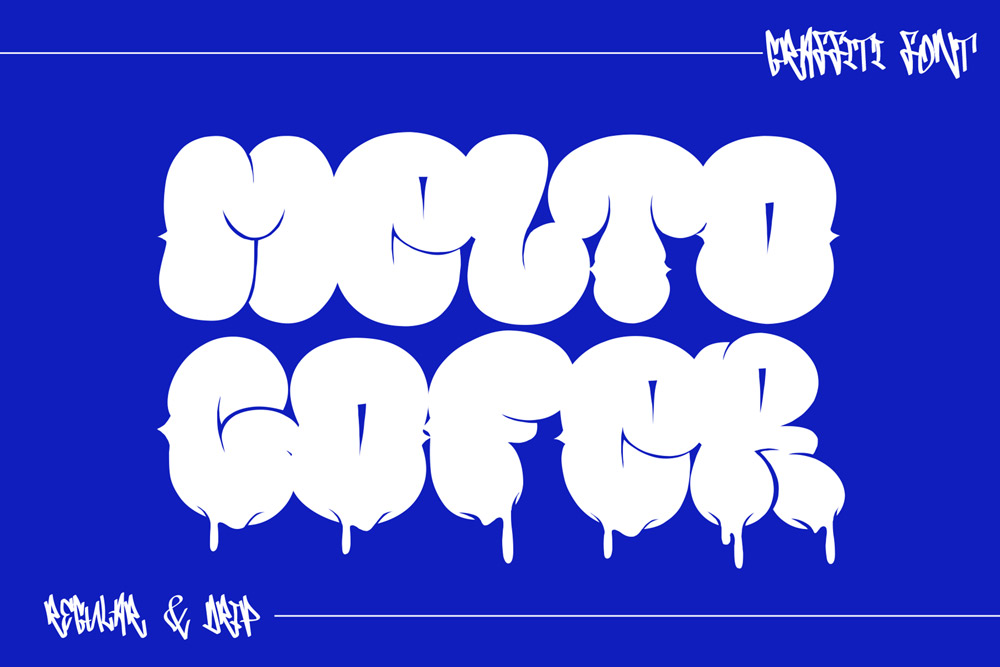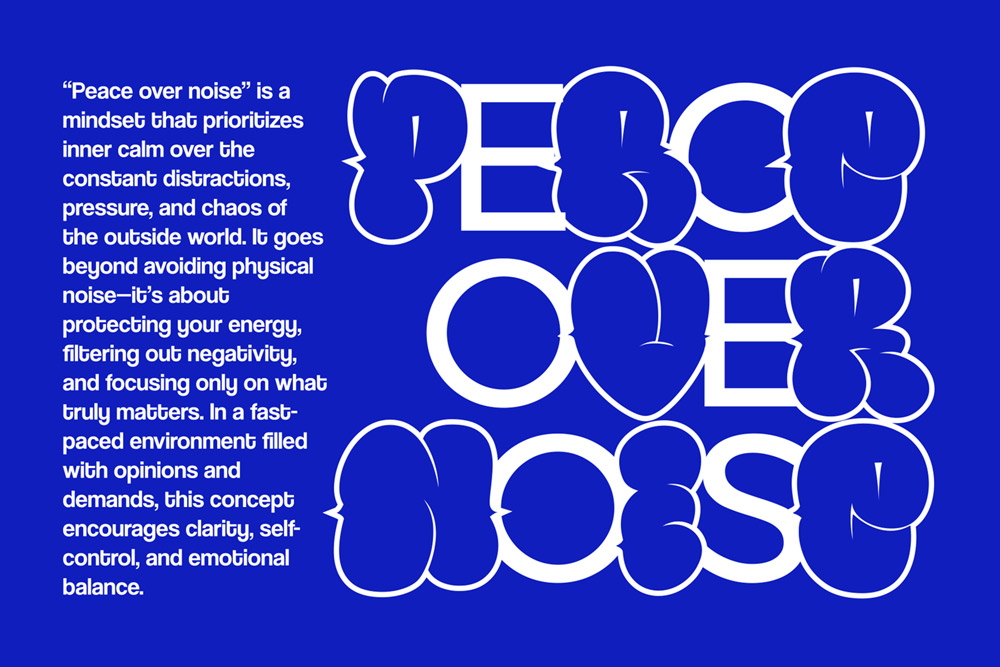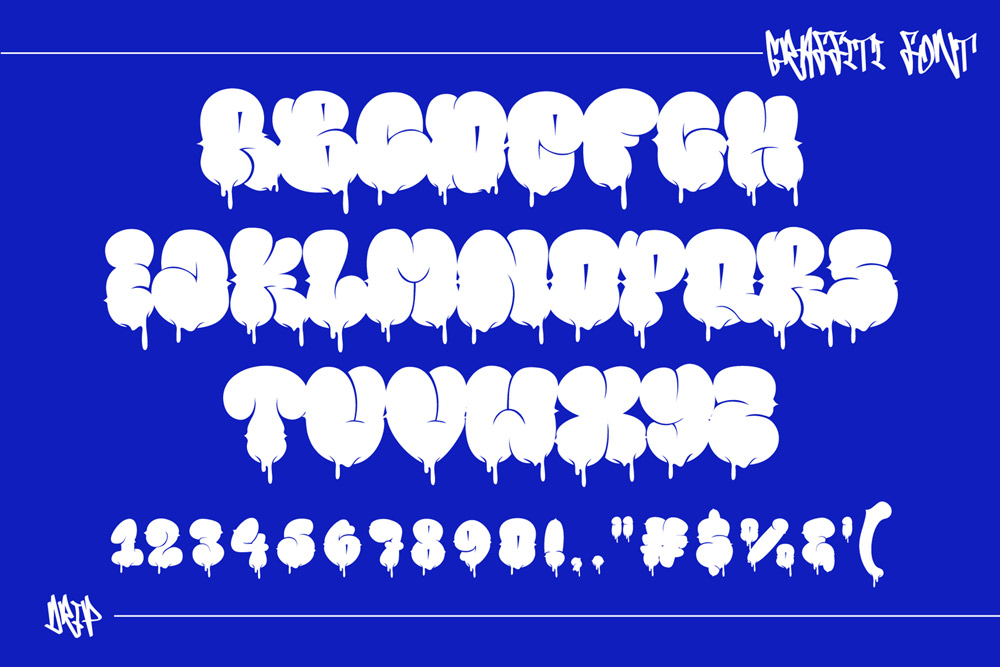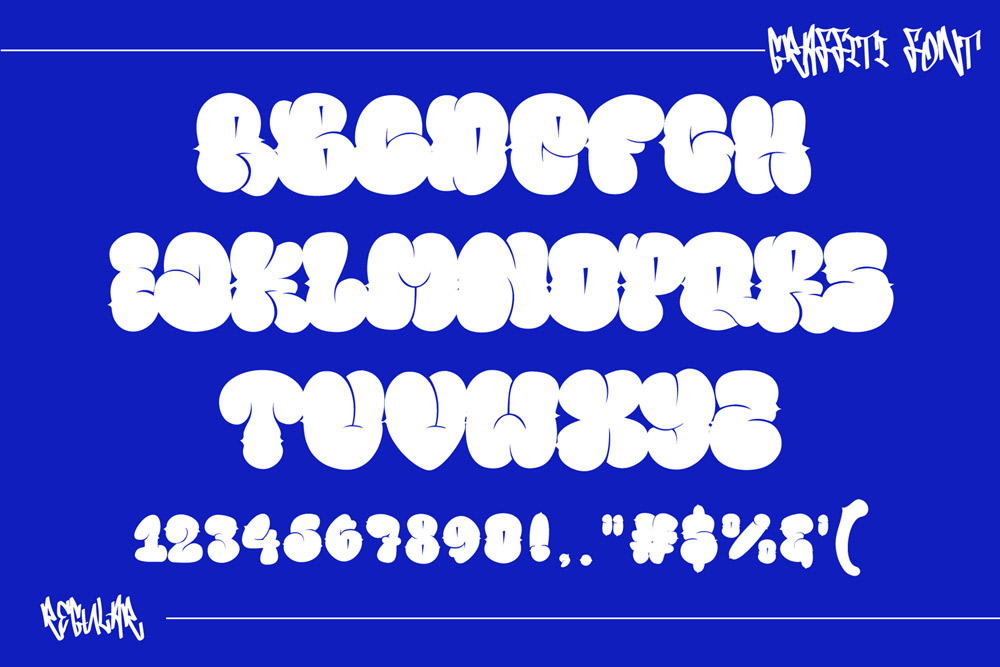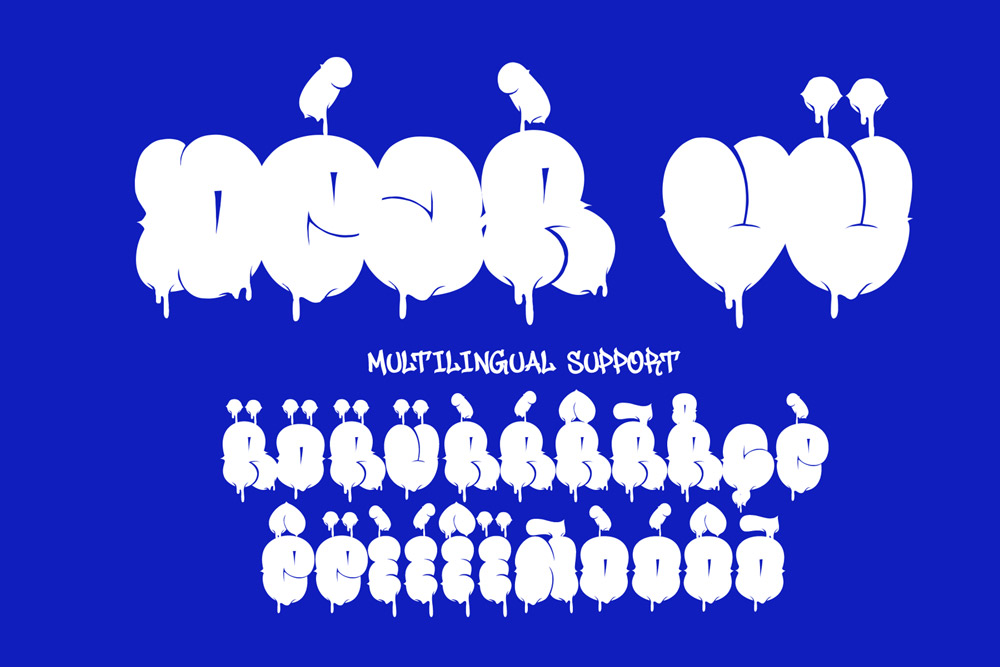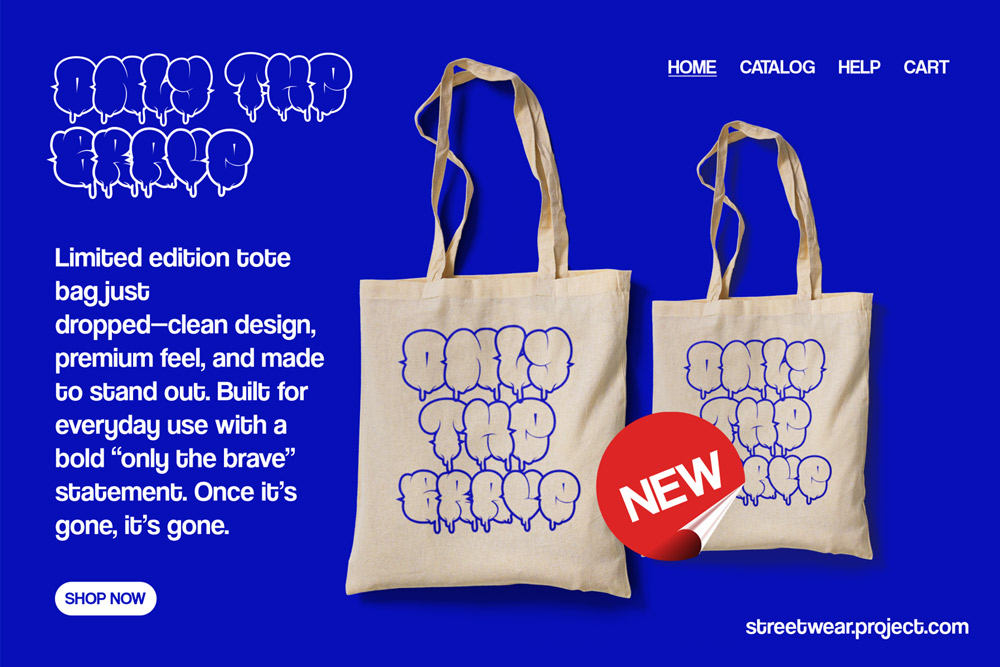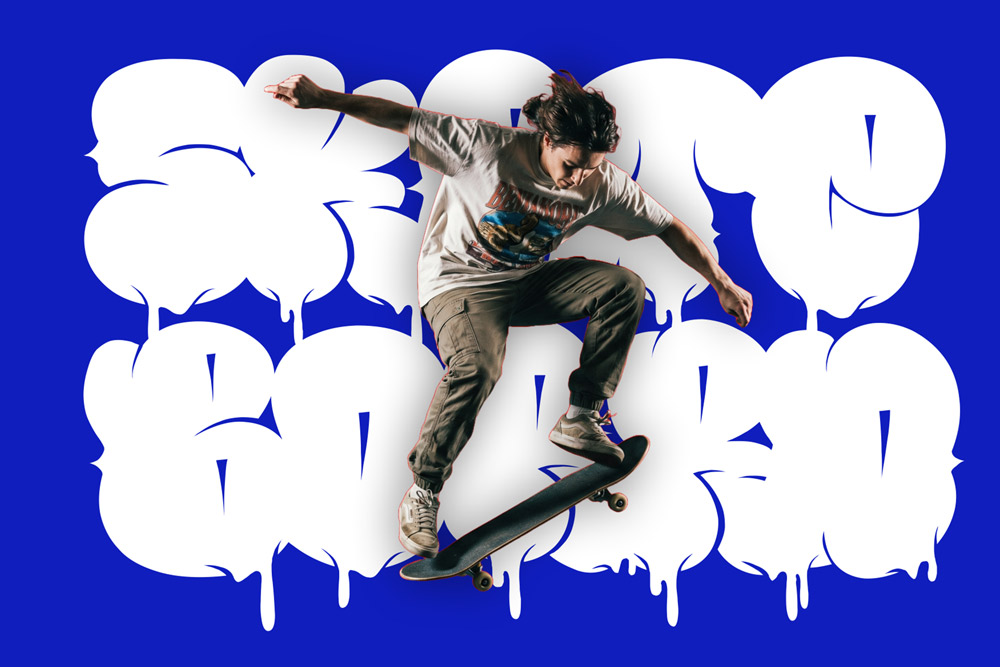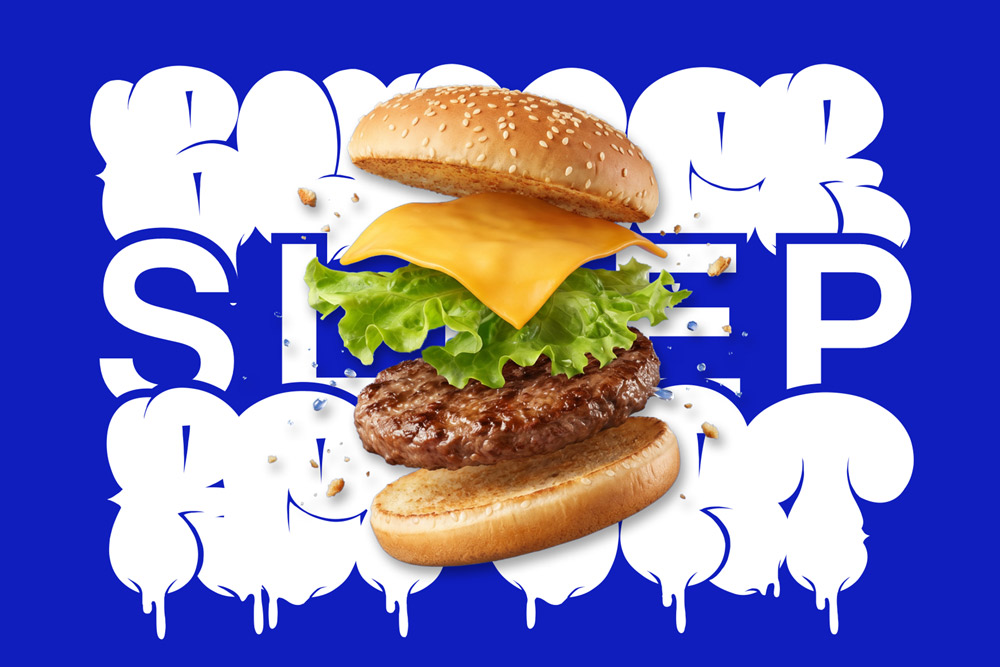
About Melto Gofer
Melto Gofer – Bubble Dripping Throw-Up Graffiti Font
Melto Gofer is a bold and playful graffiti font inspired by classic throw-up lettering and bubble-style street art. Designed to capture the fast, expressive energy of urban tagging, this bubble graffiti font blends rounded shapes with dripping effects to create a dynamic and eye-catching visual style. Whether you’re working on streetwear branding, posters, or music artwork, Melto Gofer graffiti font brings a fresh and authentic street vibe to your designs.
This dripping graffiti font is perfect for designers who want to create fun yet edgy compositions. The combination of soft bubble forms and dripping details makes Melto Gofer a standout urban graffiti font that delivers both personality and impact.
A Bubble Graffiti Font with Throw-Up Energy
Melto Gofer graffiti font is inspired by throw-up graffiti styles, known for their quick execution and bold visual presence. This bubble graffiti font features rounded, inflated letterforms that feel playful and energetic while still maintaining strong readability.
The dripping effect in this graffiti font adds movement and texture, giving your typography a lively and organic feel. Whether you’re designing bold headlines or layered compositions, Melto Gofer urban font ensures your work stands out with a unique street aesthetic.
Playful Yet Bold Urban Typography
Unlike aggressive or sharp graffiti styles, Melto Gofer graffiti font offers a softer and more approachable look. This bubble graffiti font is perfect for projects that need a balance between fun and attitude. Its rounded shapes make it ideal for branding, especially in streetwear and youth-oriented designs.
At the same time, the dripping details keep this dripping graffiti font rooted in authentic street culture. This combination makes Melto Gofer a versatile graffiti display font that works across a wide range of creative projects.
Complete Character Set & Typography Features
Melto Gofer – Bubble Dripping Graffiti Font includes all essential features for professional design use.
Uppercase Characters
Bold and rounded uppercase letters designed with authentic bubble graffiti font style for maximum visual appeal.
Multilingual Support
Supports multiple languages, making this graffiti font suitable for global branding and international audiences.
Numbers & Punctuation
Includes a full set of numbers and punctuation, ensuring flexibility for all design applications using this urban graffiti font.
- Unique bubble graffiti font design
- Throw-up style inspired lettering
- Dripping version for added expression
- High readability for display typography
- Perfect for urban branding and streetwear
- Playful yet bold visual style
- Works across digital and print media
Why Designers Love Melto Gofer
Designers love Melto Gofer graffiti font because it offers a fresh take on traditional street lettering. The rounded shapes make this bubble graffiti font approachable and fun, while the dripping style adds authenticity and edge.
This dripping graffiti font is especially popular for projects targeting younger audiences or playful branding. Its unique combination of softness and attitude makes it a versatile urban graffiti font that can adapt to different creative needs.
Another reason designers choose this graffiti font is its flexibility. With both regular and drip styles included, Melto Gofer allows for easy variation within a single project. This makes it a powerful tool for creating cohesive yet dynamic designs.
Perfect For Creative Projects
Melto Gofer graffiti font is ideal for:
- Streetwear branding
- Graffiti posters and flyers
- Music album covers
- Social media graphics
- Logo design with playful urban style
- Merchandise and apparel
If you’re looking for a bubble graffiti font with dripping character, Melto Gofer is the perfect choice.
Pairing Melto Gofer graffiti font with a raw dripping style creates a strong contrast between playful bubble forms and aggressive textures, resulting in a dynamic graffiti font combination.
Designed for Modern Urban Creativity
Melto Gofer – Bubble Dripping Throw-Up Graffiti Font is more than just a typeface—it’s a creative expression of street culture. With its rounded shapes and dripping energy, this graffiti font transforms your designs into vibrant and unforgettable visuals.
If you want a bubble graffiti font that combines fun, style, and authenticity, Melto Gofer is your ultimate choice. Bring your ideas to life, make your typography pop, and create designs that truly stand out.